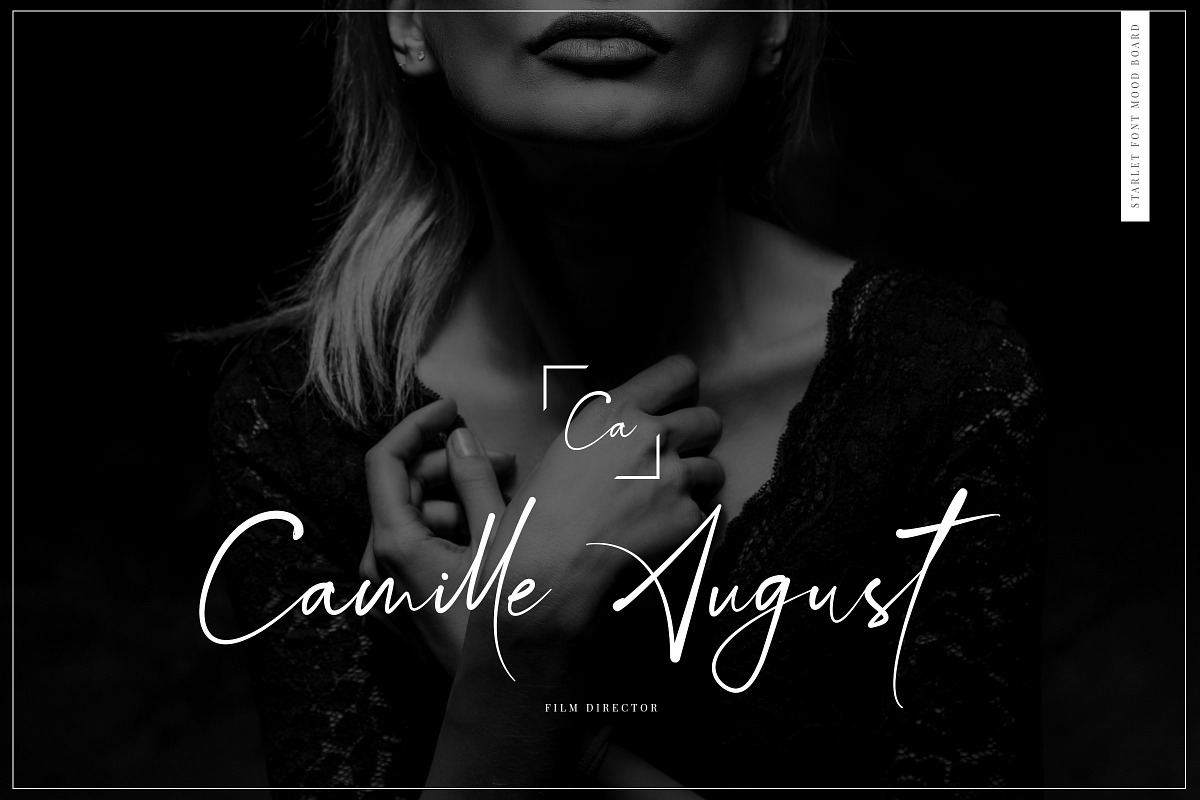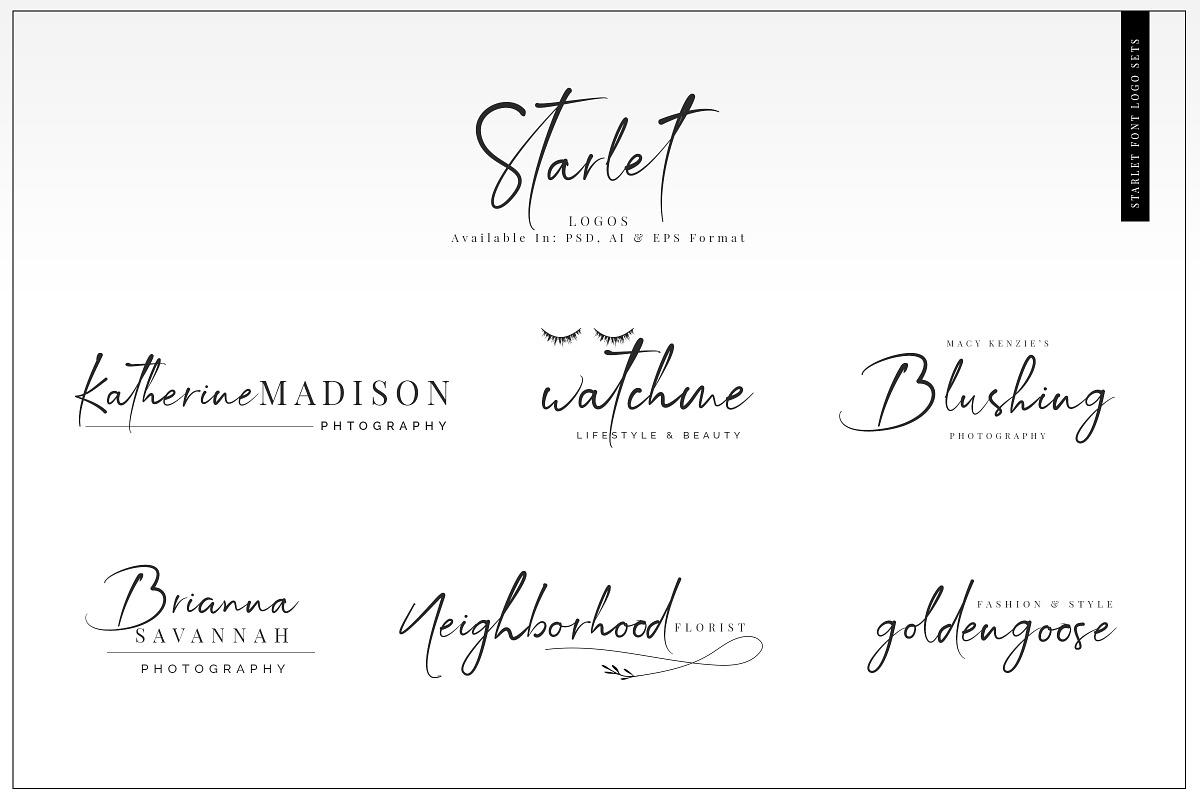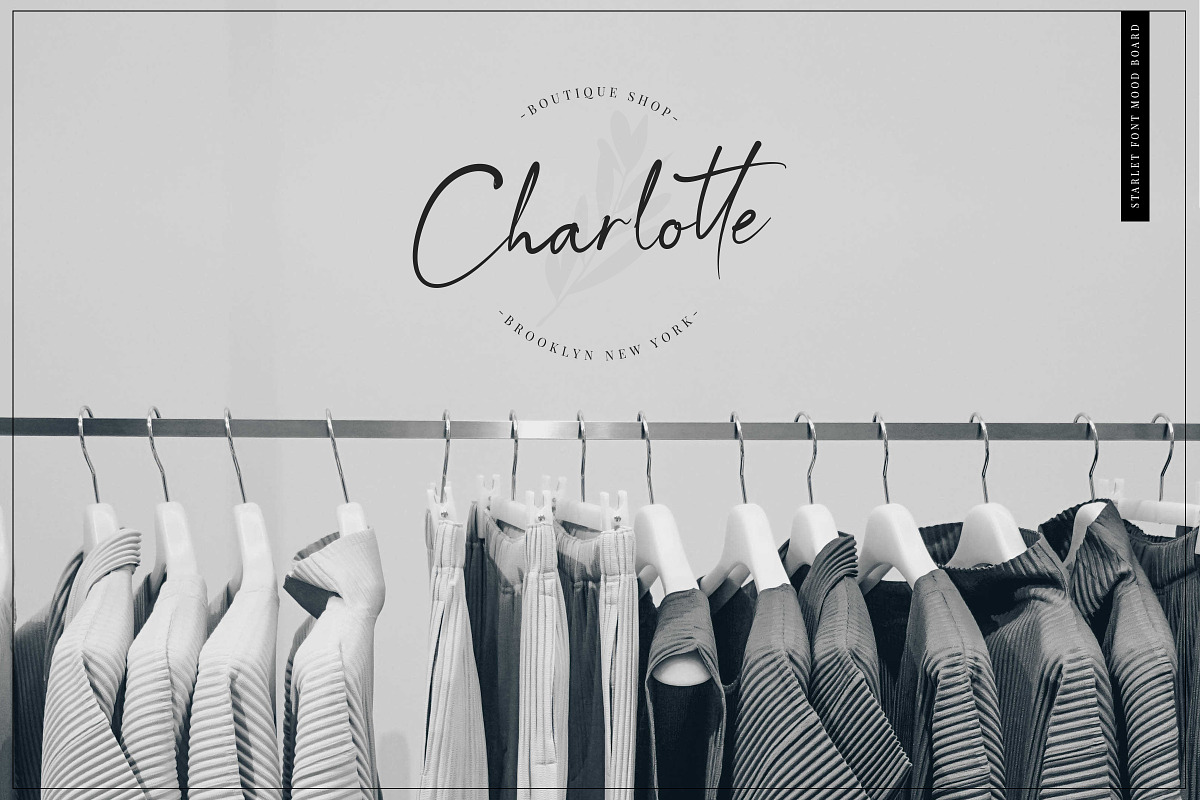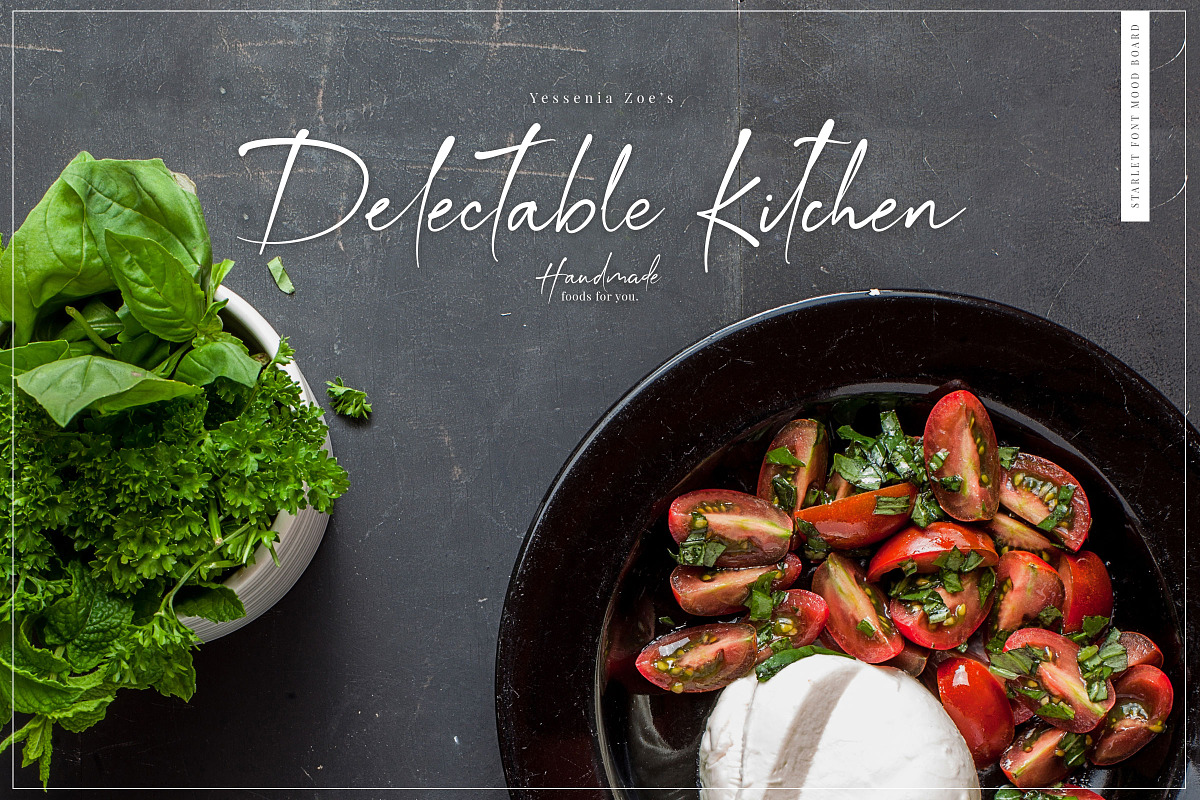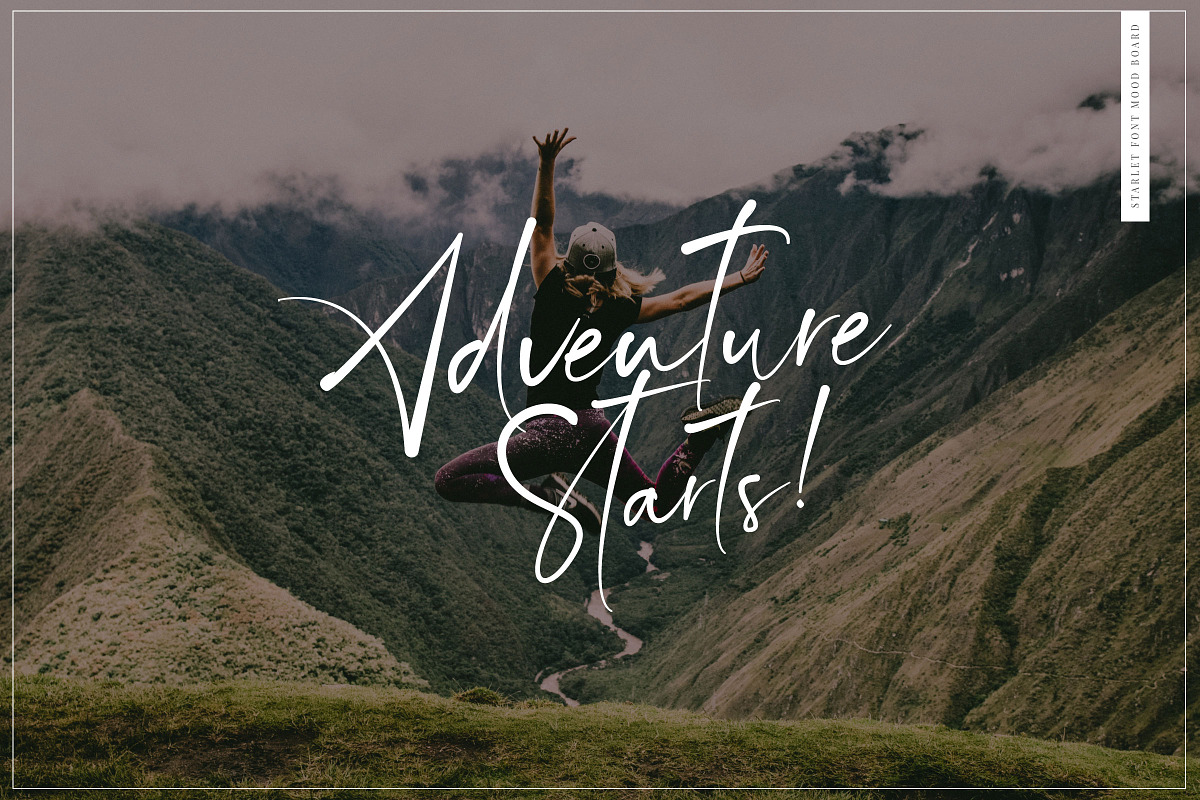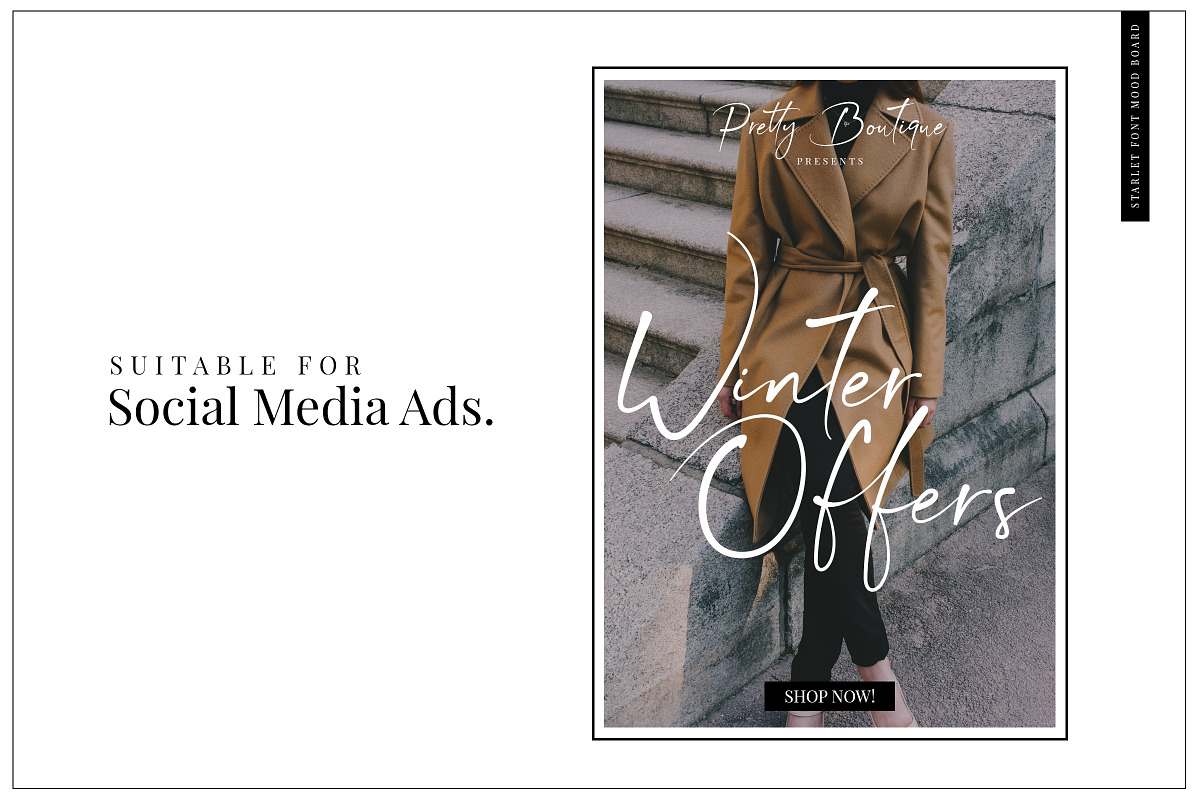
Starlet Script Font + 12 Logos
Starlet - An Elegant Script Font a pure handwritten font designed for your Branding and Advertising Design Projects. Starlet font is made with unique ligatures and alternatives to look your writing natural and pure organic!!
Starlet Script.otf: The fully featured OpenType font file with full set of lowercase and uppercase alternatives, 47 handmade ligatures, numbers and punctuation. Starlet Script also includes multiple character versions of same character to look your typing natural even more! So installing the Starlet.otf font file is highly recommend.
47 Starlet Ligatures: ht, dd, th, ee, tt, kk, pp, oo, gg, ess, ss, mm, nn, ate, sh, el, at, iti, it, ff, st, lt, ll, ol, aut, ion, ent, att, lly, bb, St, Sh, gy, rr, ity, il, ft, ill, fl, ing, oot, yy, er, ly, gh, or, et
International Symbols: ÀÁÂÃÄÅĄÇĆÈÉÊËĘÌÍÎÏÐÑŃŁÒÓÔÕÖØÙÚÛÜŚŠŸÝŹŻŽßàáâãäåçèéêëìíîïðñòóôõöøùúûüýÿąćęłńśšźżž